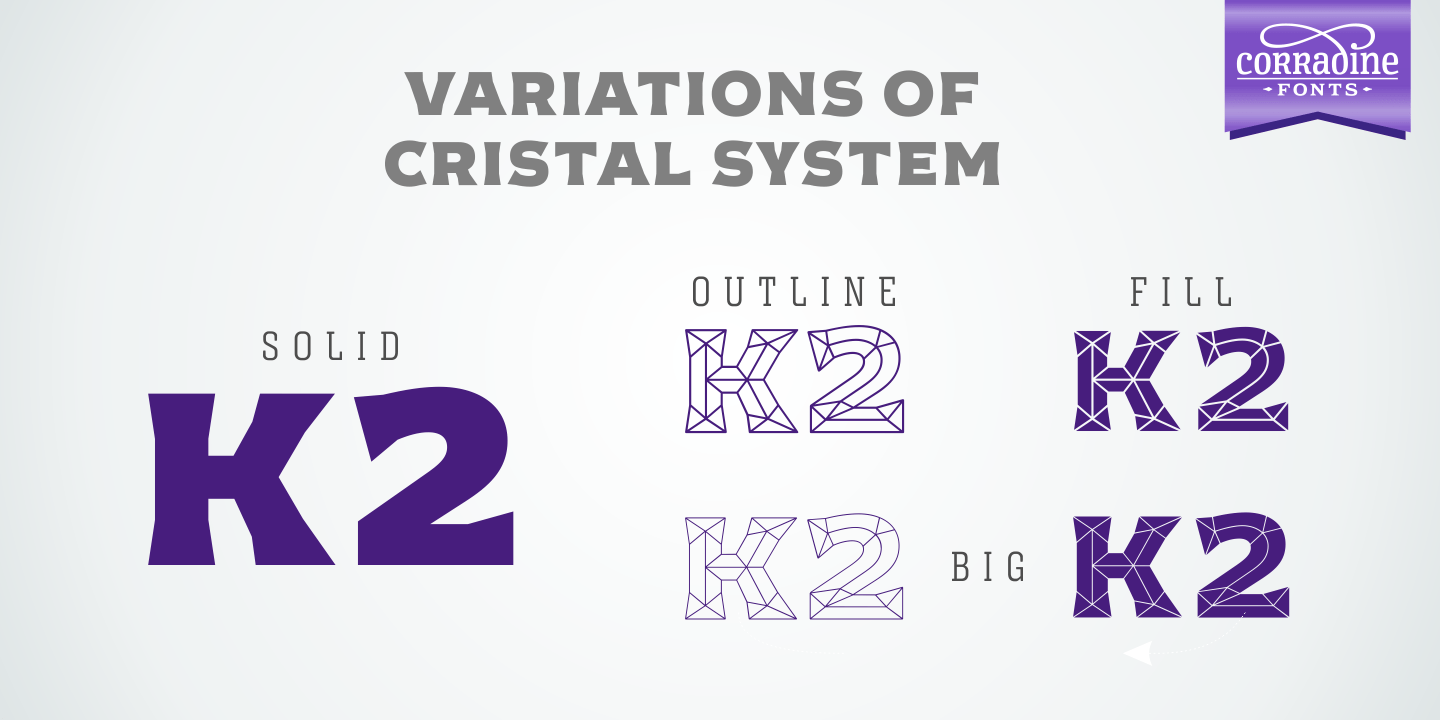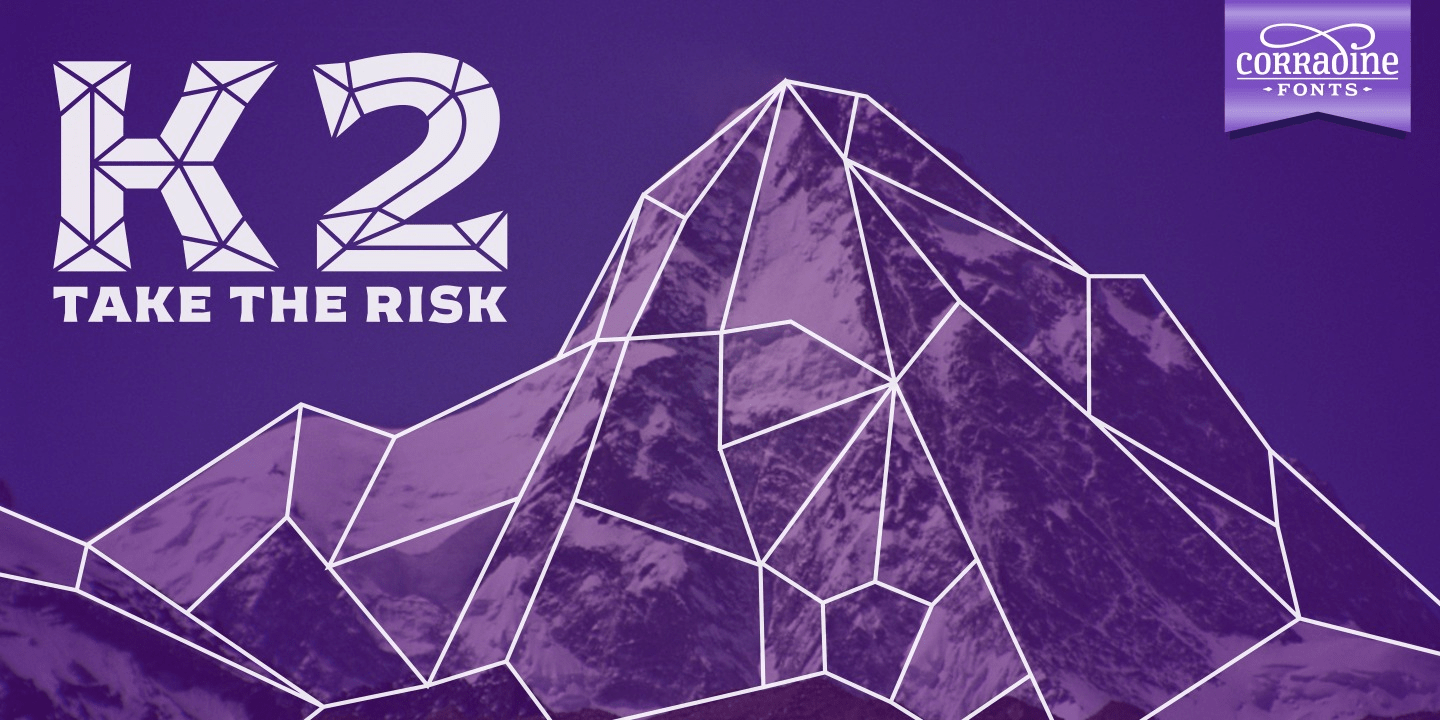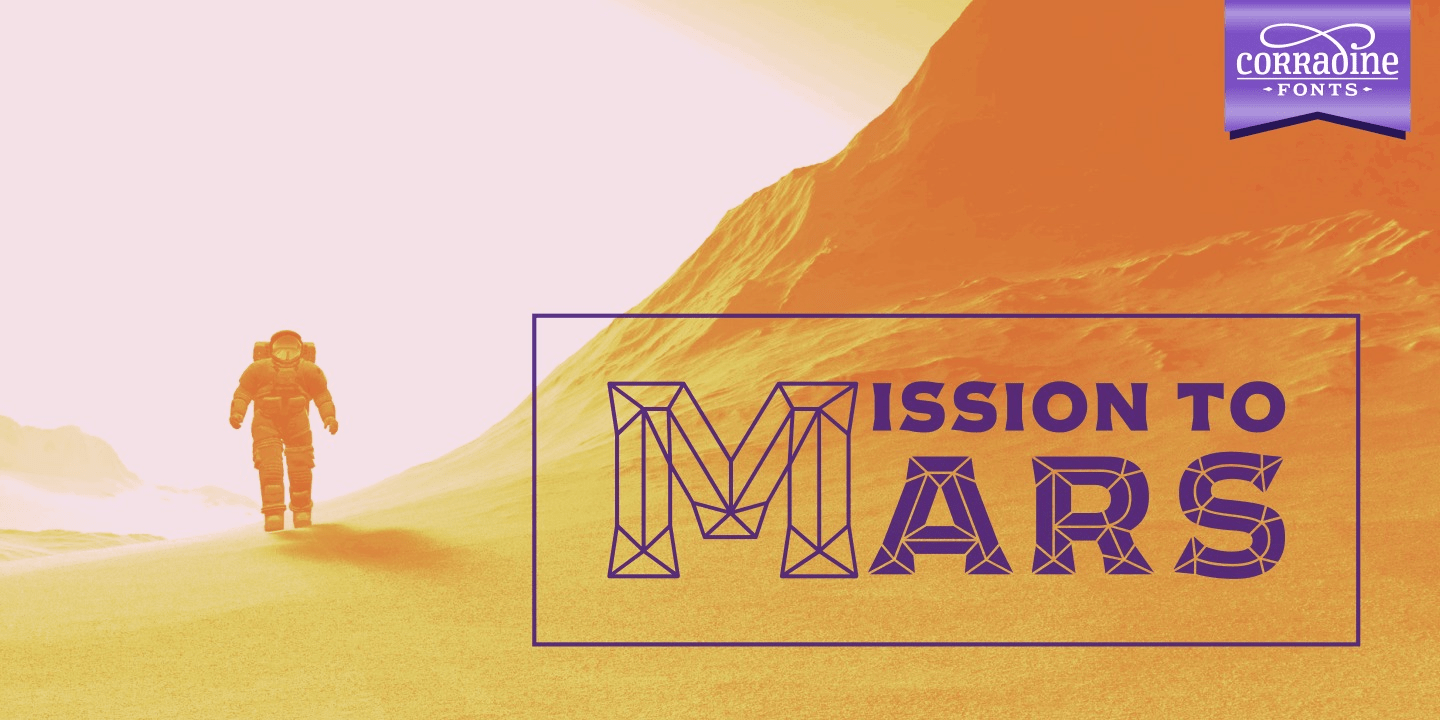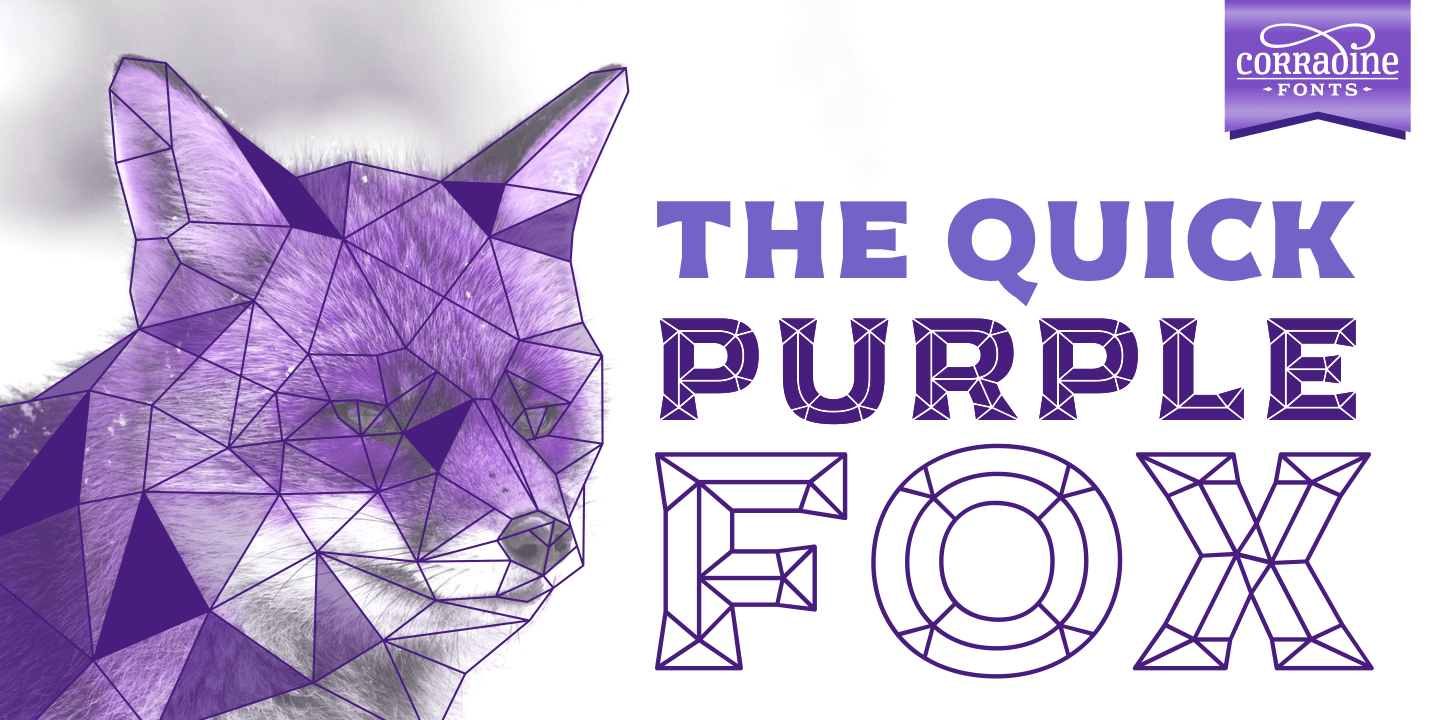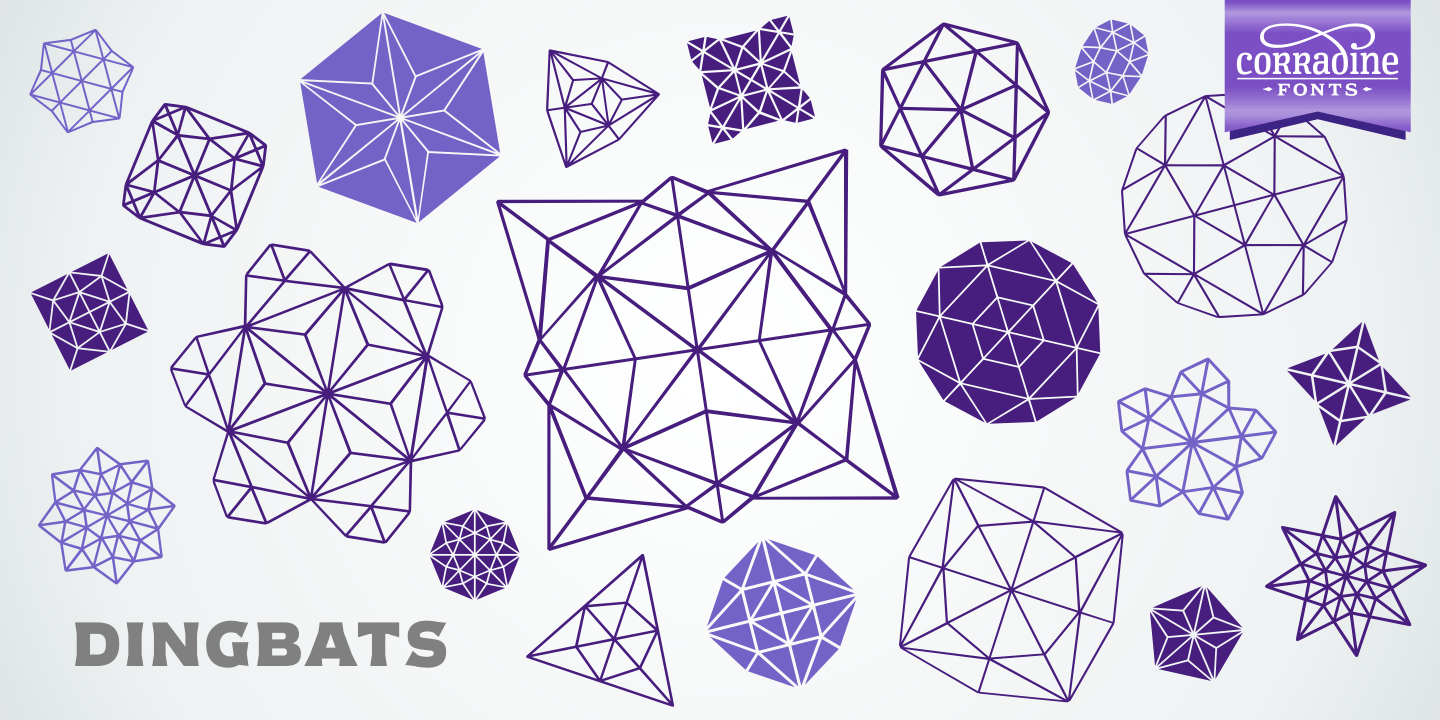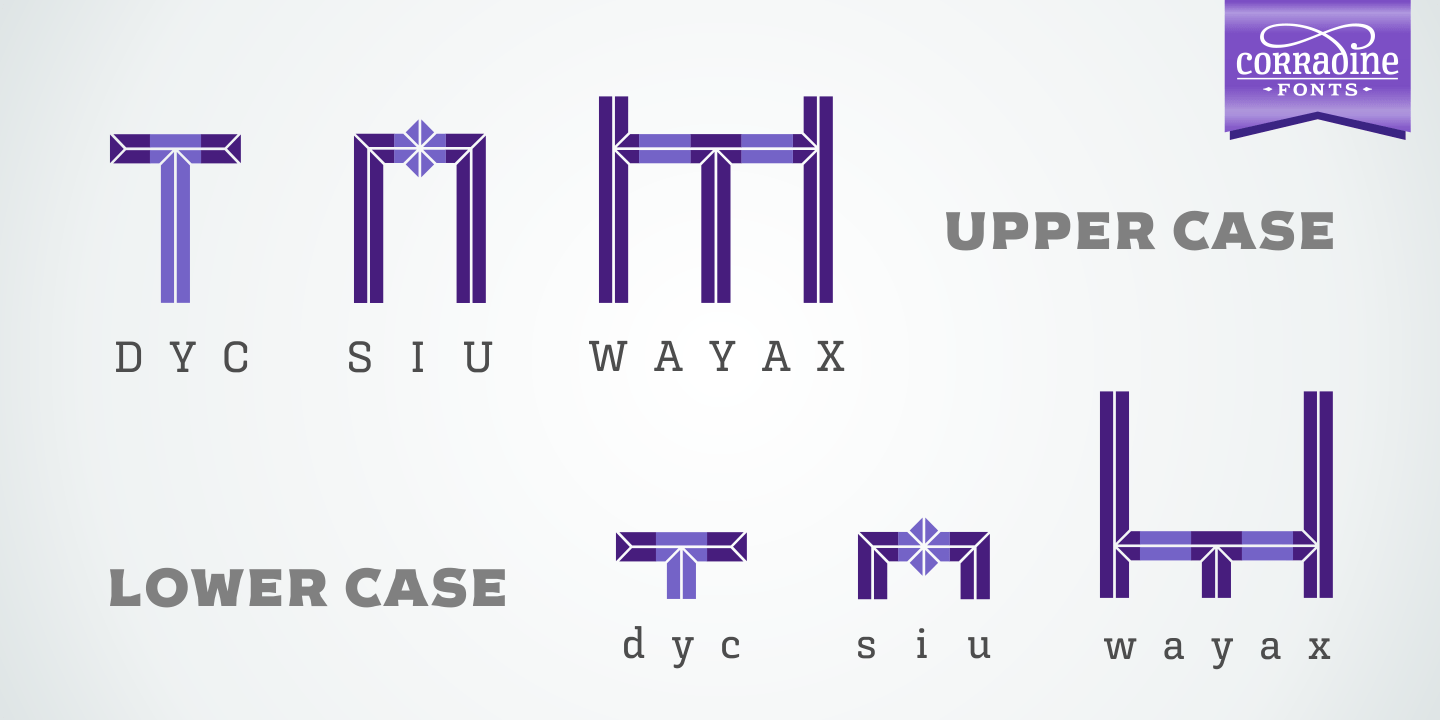
Cristal
About Cristal
Cristal is a modern typeface inspired in the cuts of a bevel effect. Its lines build each letter as a cutted gem giving an unique elegant aspect. It comes in two weights to be used at different sizes and has positive and negative versions. Also has a…